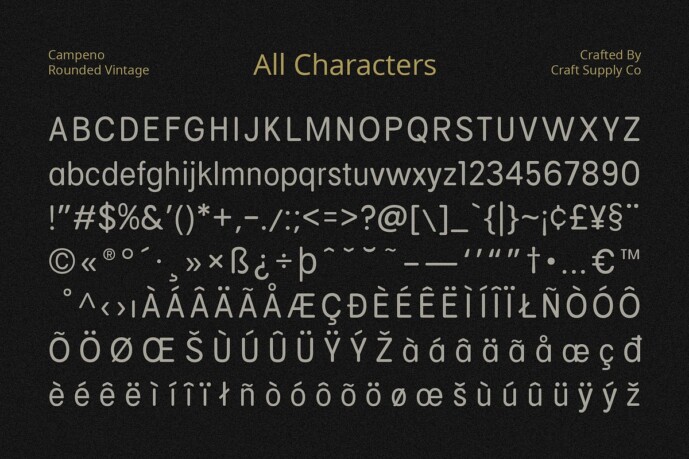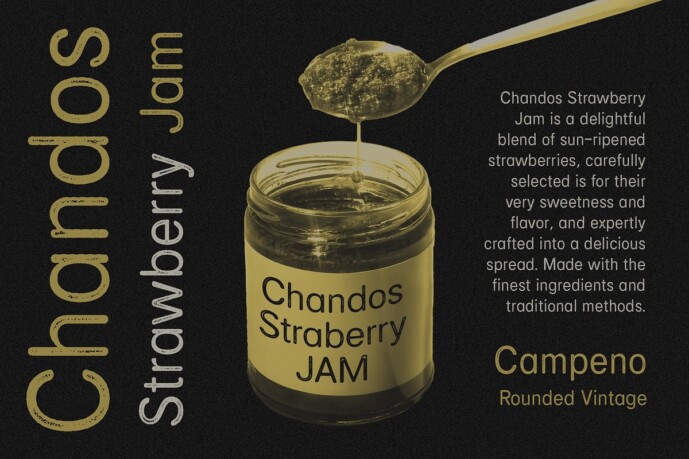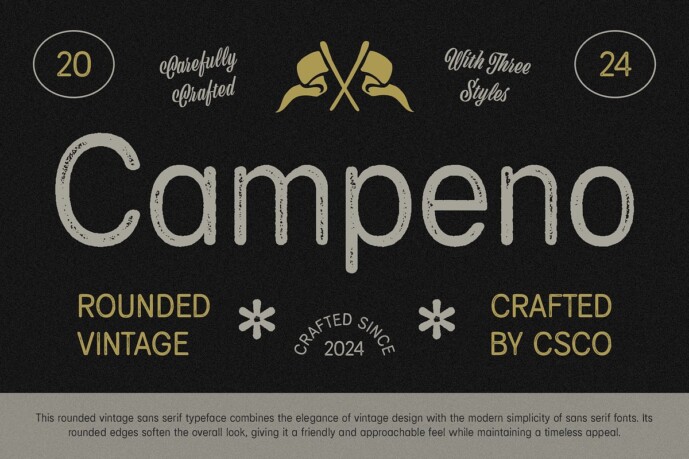
Campeno Rounded Vintage Font
Designer: Craft Supply Co.
Campeno Rounded Vintage Font: A Nostalgic Display Typeface. Retro-Inspired Charm Campeno Rounded Vintage captures the essence of vintage aesthetics with its low-contrast sans serif design. The rounded stem ends evoke a sense of nostalgia, reminiscent of classic typography from bygone eras.
Handcrafted Appeal With its drawn stamp and rough effects, This font exudes a handcrafted charm that adds authenticity to any design project. Each character bears the unique imperfections of handmade typography, infusing warmth and character.
Perfect for Display Needs Tailored for vintage-themed displays, This font excels in conveying a sense of nostalgia and authenticity. From posters and signage to packaging and branding, this font lends a retro flair to any visual communication.
Versatile and Timeless Despite its vintage-inspired design, This font offers versatility in its application. Whether used for digital or print media, its timeless appeal transcends trends, making it suitable for a wide range of design projects.
Retro Delight This font is more than just a font; it’s a journey back in time. With its low-contrast sans serif style, rounded stem ends, and handcrafted effects, it brings a nostalgic charm to any display project, infusing it with warmth and authenticity. Step into the world of This font and evoke the timeless allure of yesteryears in your designs